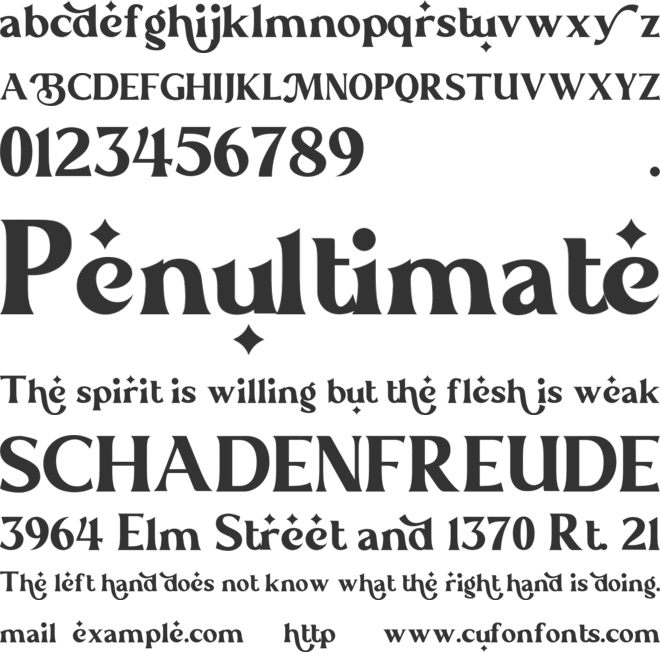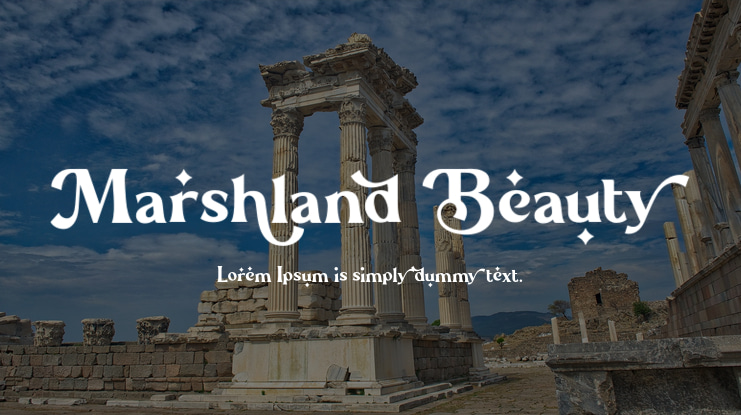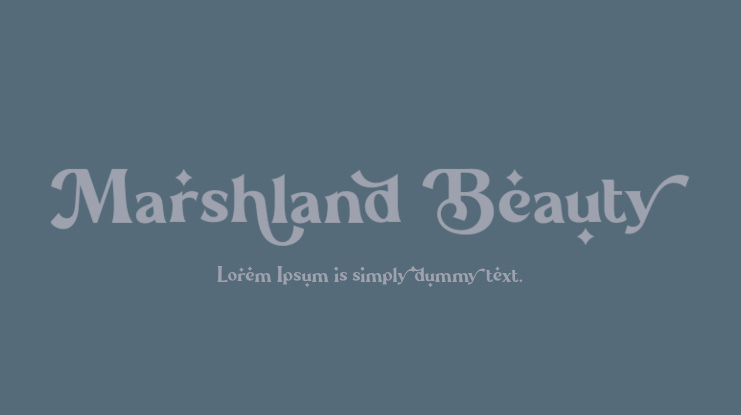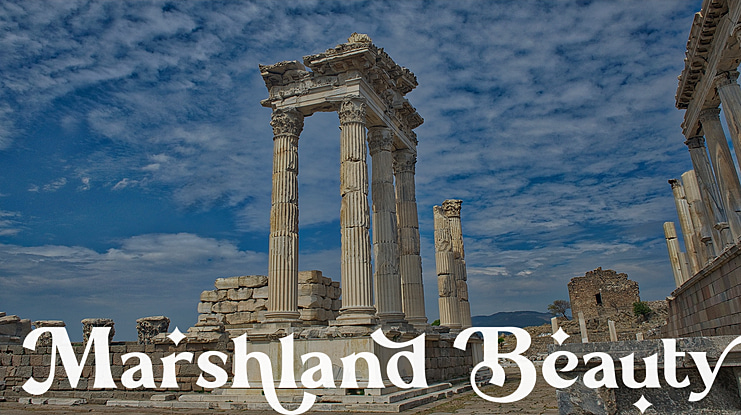
Marshland Beauty Font
To get results like the preview just type M.3ar.3sh.4land.2 B.5e.2au.4ty.2 (you can try it on aluyeah.com (https://aluyeah.com/product/marshland-beauty/))
Marshland Beauty, a Maleficent Beauty Display Font with 110+ Stunning Summer Vibe Alternates.